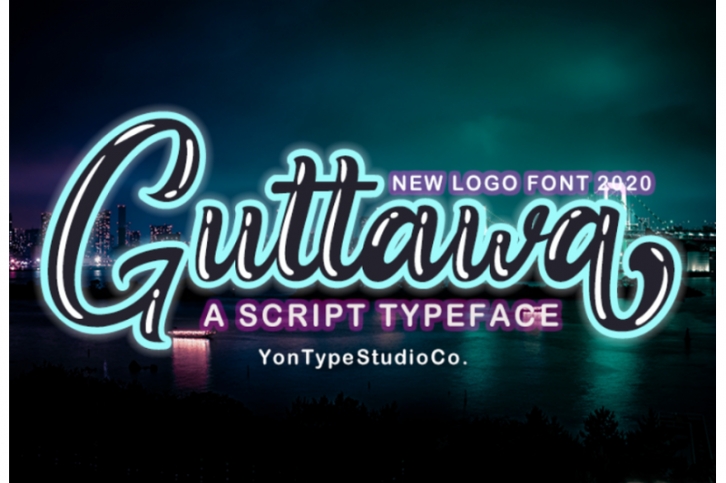
Introducing Guttawa Font
Guttawa Font is a unique font with several combinations suitable for your logo typeface projects, watermarks, product, and company branding, WEB Headers and many more
Just use your creativity when combining the characters to get the best combination '